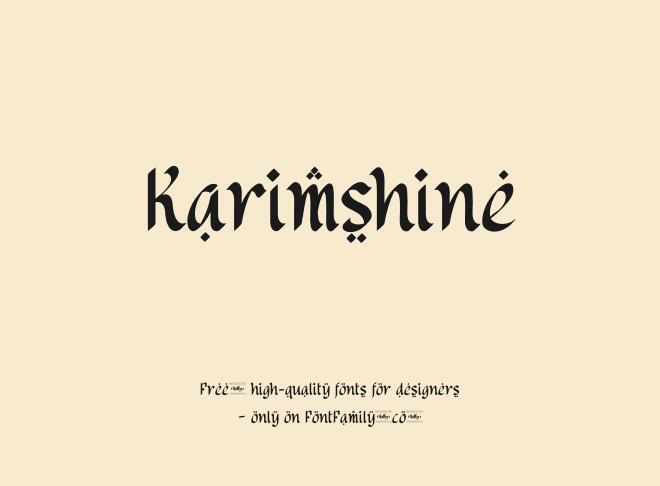
Karimshine Font
Introducing the Karimshine Font, a modern and elegant script font with a handwritten feel. This unique font, designed by Karim Design Studios, offers a blend of classic and contemporary styles, making it a versatile choice for a range of design projects. Its smooth curves and flowing lines make it perfect for branding, wedding invitations, logo designs, and fashion-related projects. Compared to other fonts, Karimshine stands out for its distinctive character and graceful charm. Despite its high readability, it maintains a touch of artistic flair that catches the eye. Its free personal use license makes it a great choice for personal projects or practicing design skills. Explore the beautiful world of typography with Karimshine Font and let your designs shine with uniqueness and elegance.